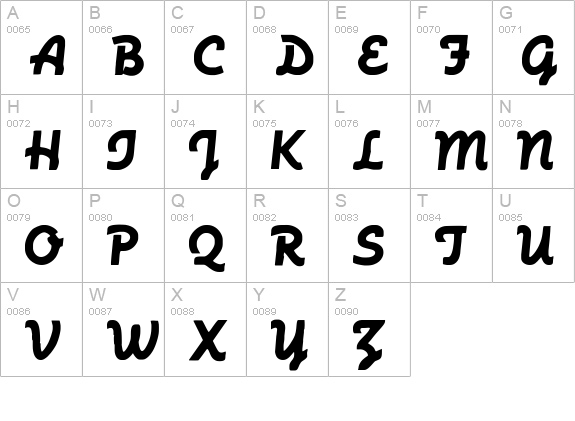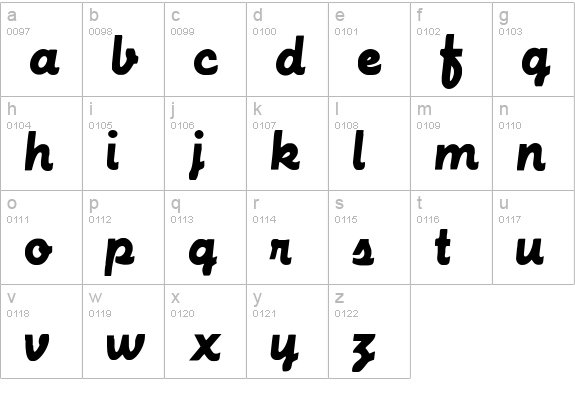
MachineScript Font Details
Introducing MachineScript, a stunningly stylish and versatile font that is sure to enhance any design project. This typeface embodies a perfect balance between modernity and retro charm, making it ideal for a wide range of creative endeavors. MachineScript boasts an impressive array of meticulously crafted characters, each exuding a sense of strength and sophistication. Its bold and angular letterforms bring a touch of edginess to any text, while its subtle curves add a touch of elegance. Whether used for headlines, logos, posters, or branding materials, this font will effortlessly command attention and leave a lasting impression. One of the most remarkable aspects of MachineScript is that it is available for free! Yes, you read that right. You can freely download this stunning font at FontsMarket.com, your go-to source for high-quality typefaces. This means that you can elevate your design projects without breaking the bank, allowing you to unleash your creativity without any limitations. Not only is MachineScript visually captivating, but it also offers a seamless user experience. Its clean and crisp outlines ensure legibility at any size, making it suitable for both print and digital media. Whether you're working on a large-scale print project or a small web banner, this font will maintain its exceptional quality and clarity. MachineScript is a versatile and dynamic font that transcends trends and time. Its timeless appeal makes it perfect for a wide range of applications, from vintage-inspired designs to futuristic aesthetics. With its unique combination of classic elegance and contemporary flair, MachineScript is sure to become a go-to font for designers and creatives alike. So, why wait? Experience the power and versatility of MachineScript today by downloading it for free at FontsMarket.com. Unleash your creativity and elevate your design projects with this stunning font that will make a lasting impact.